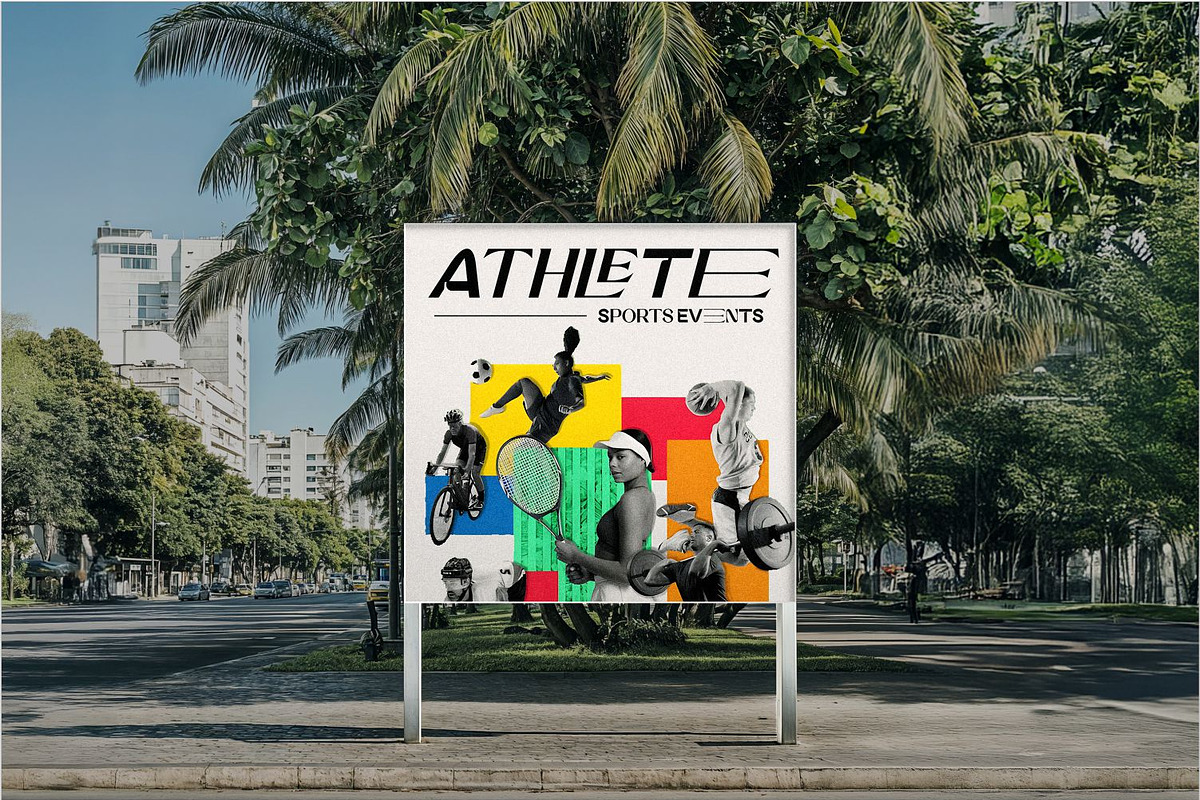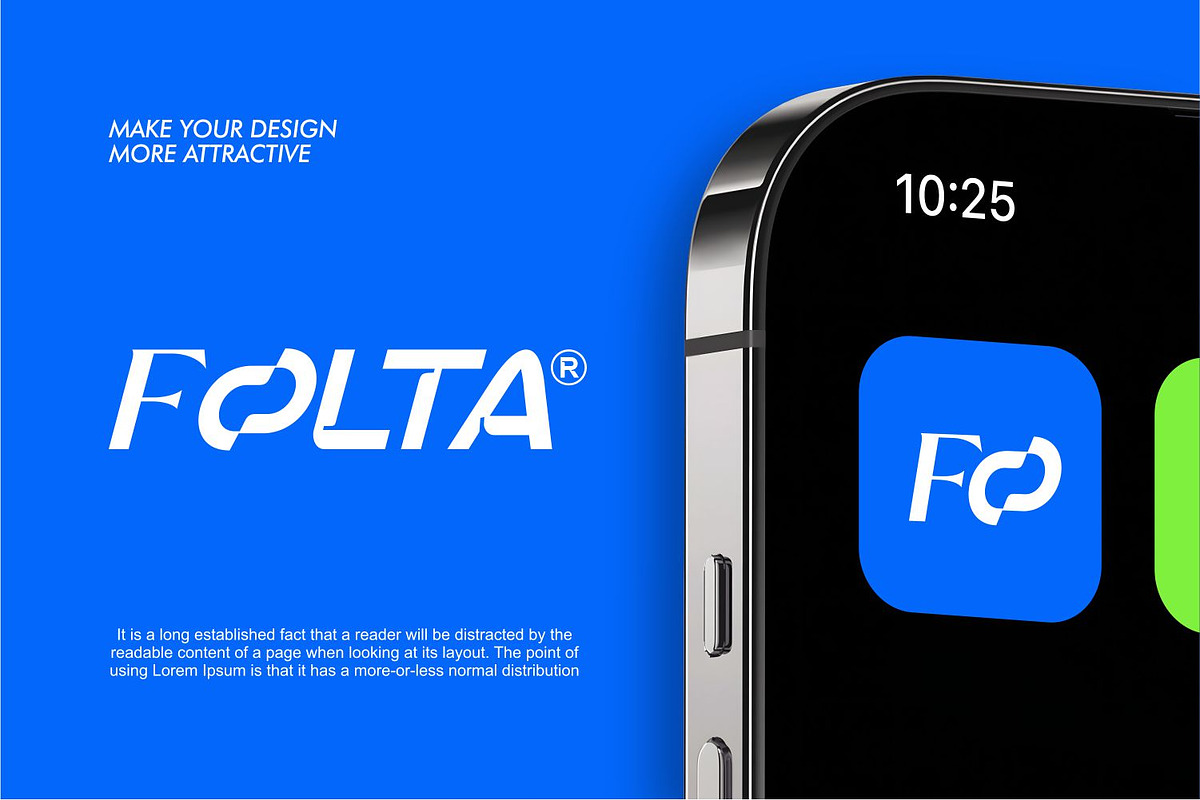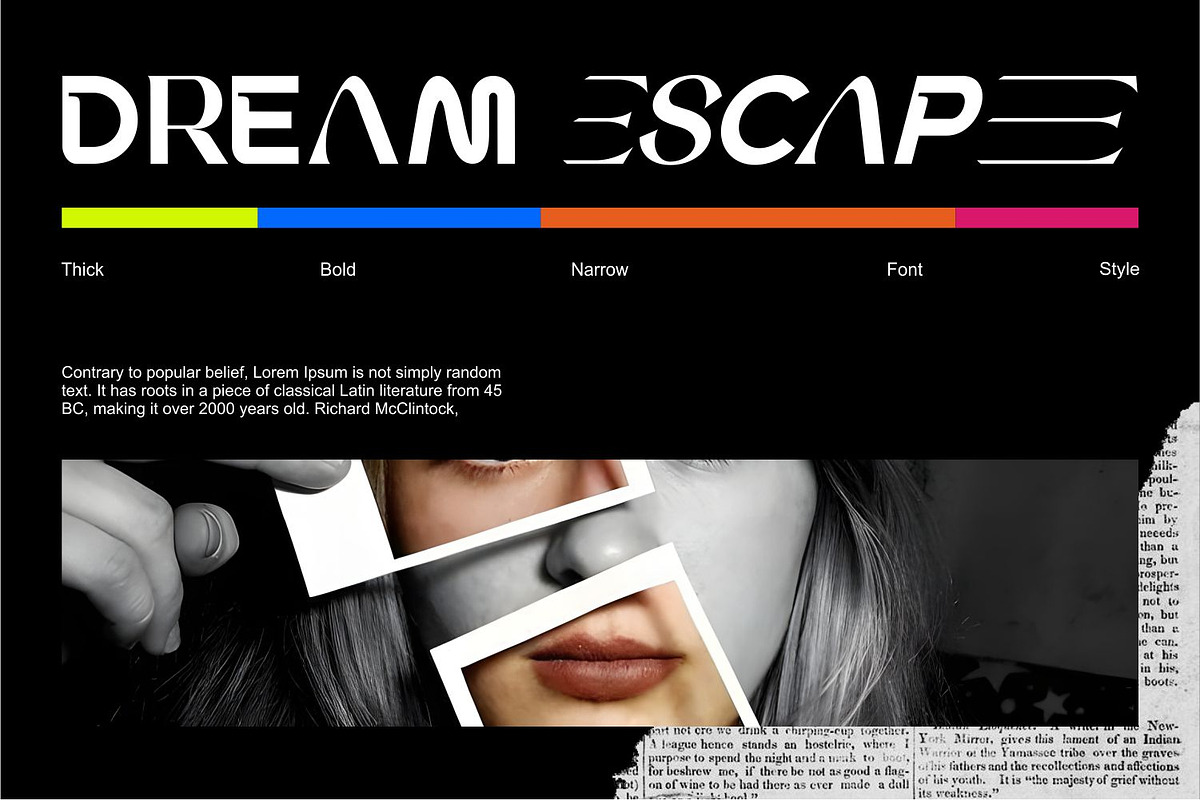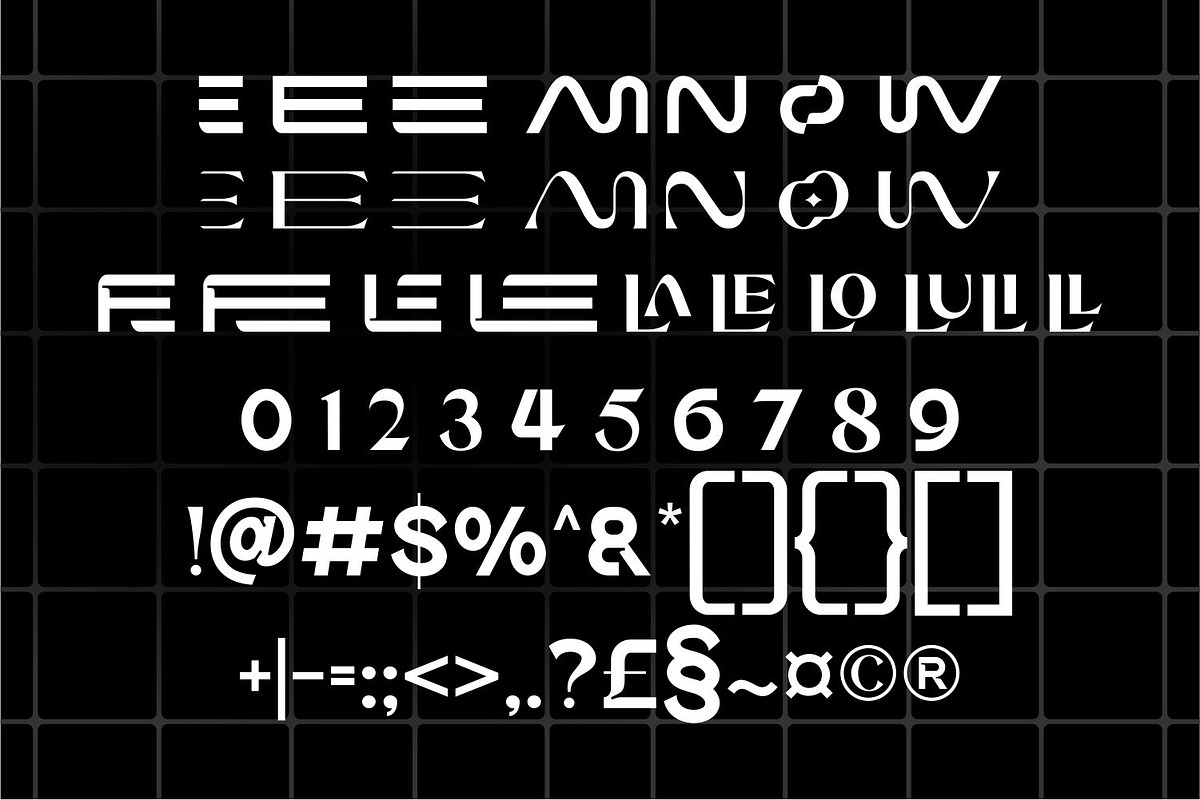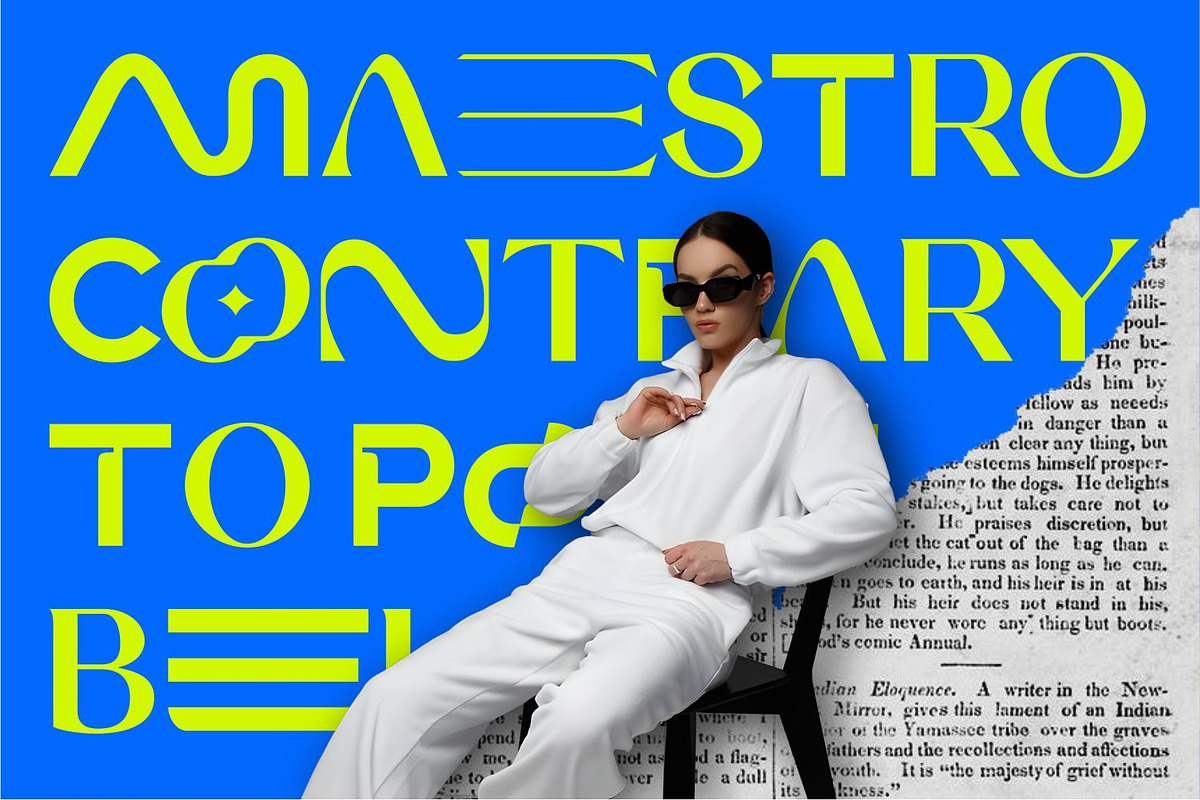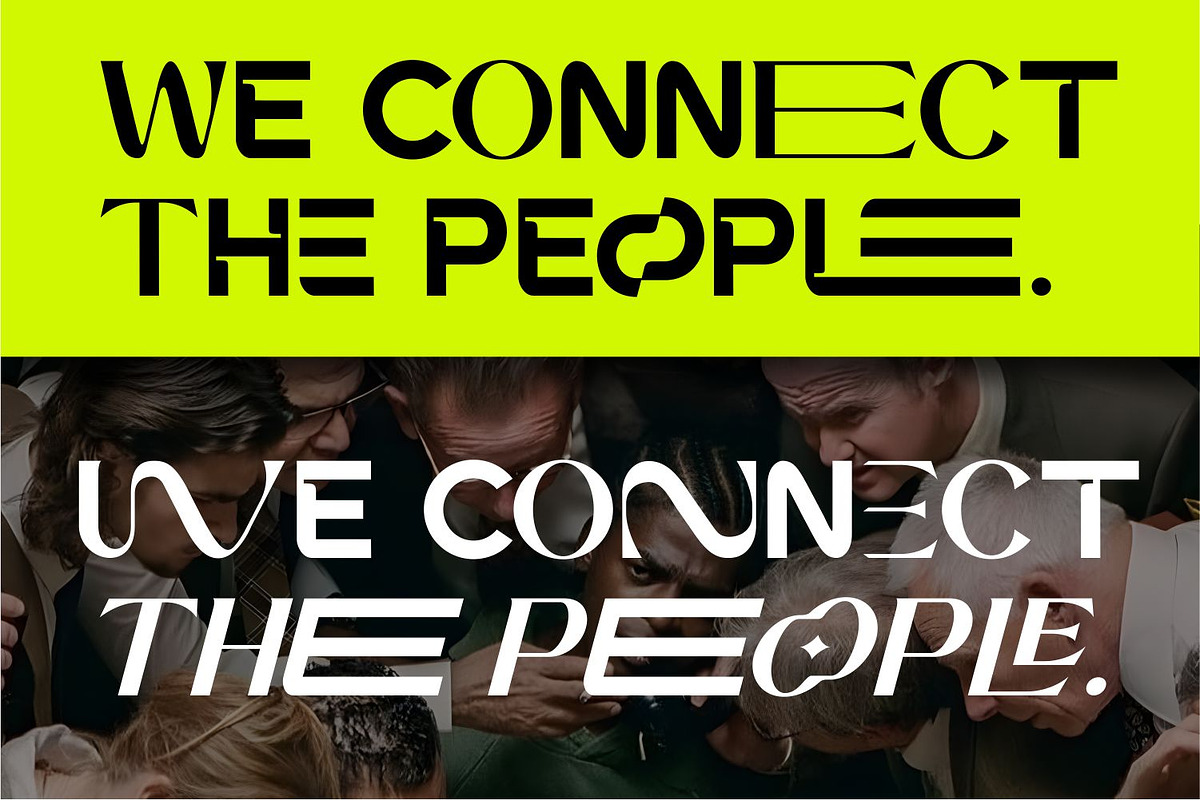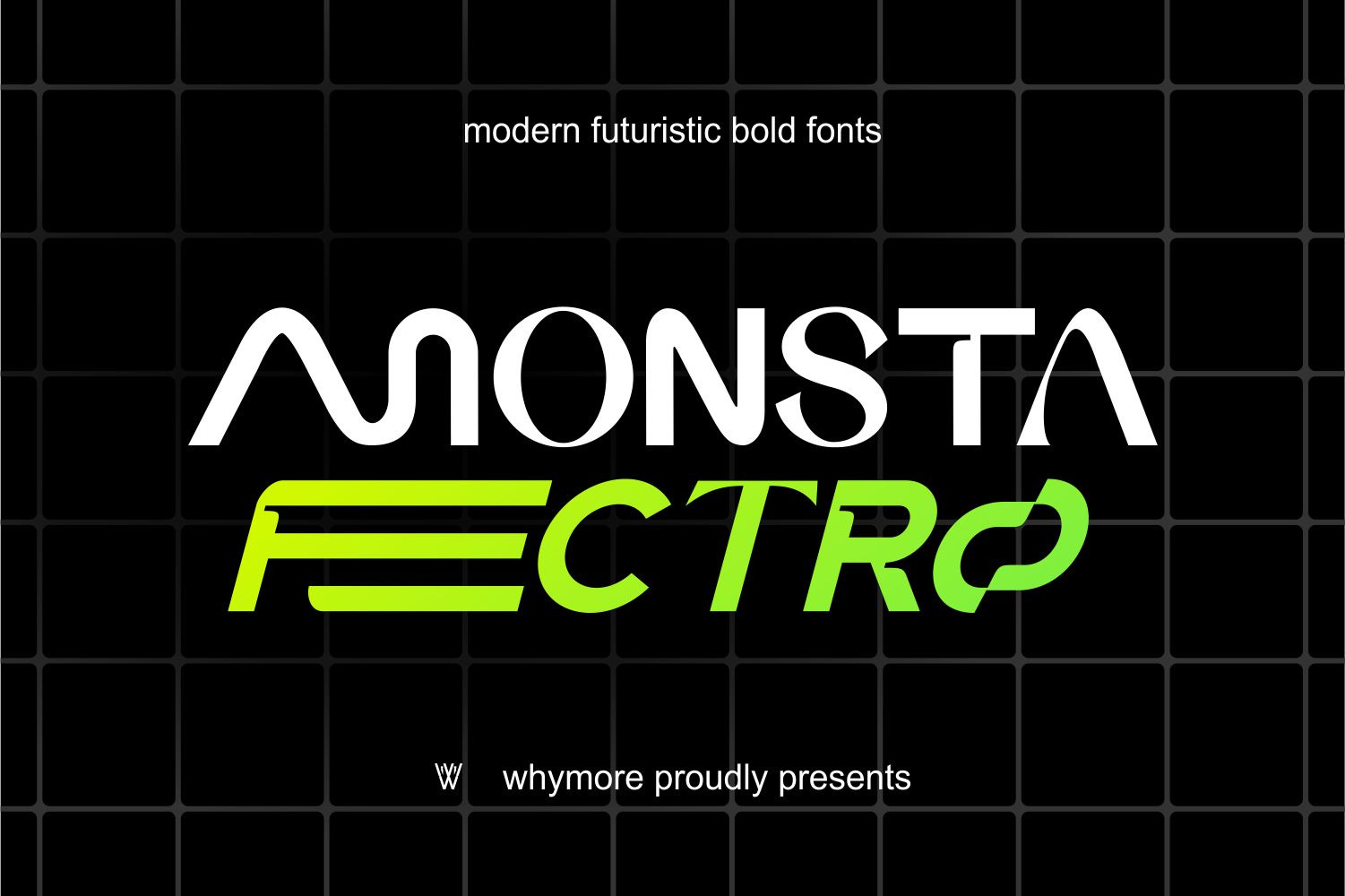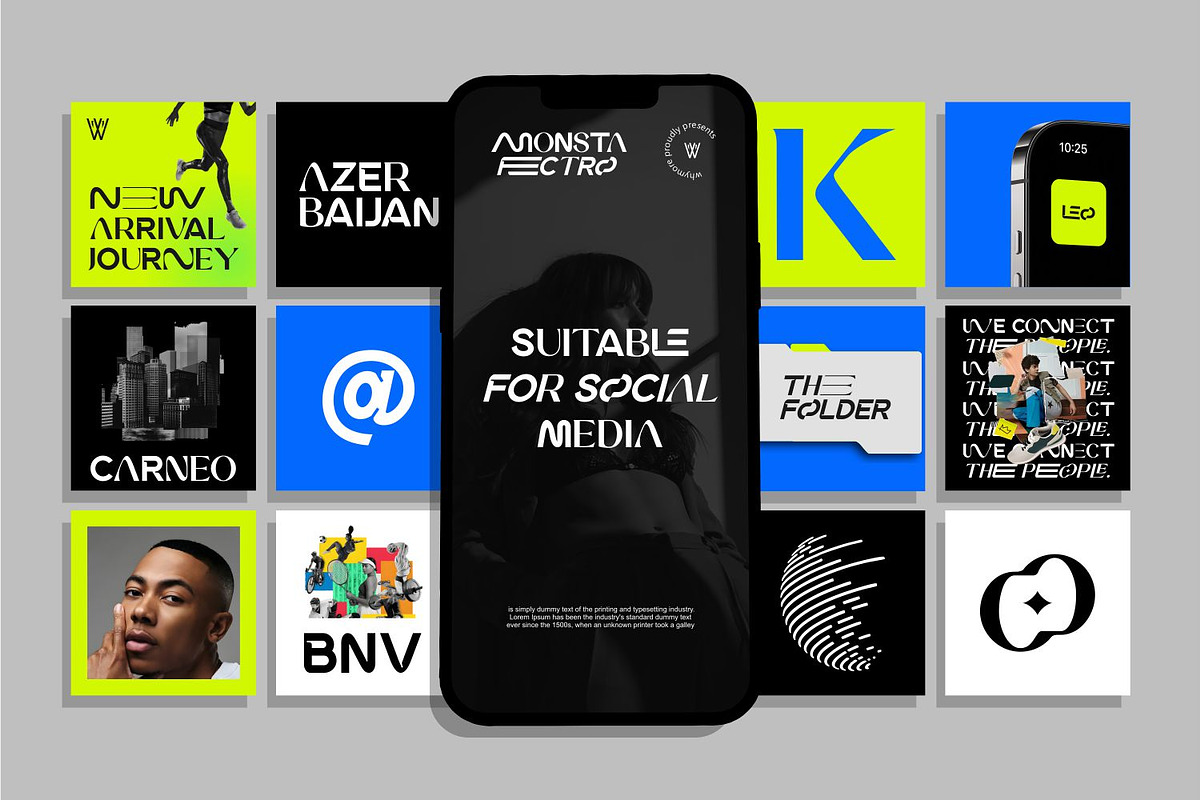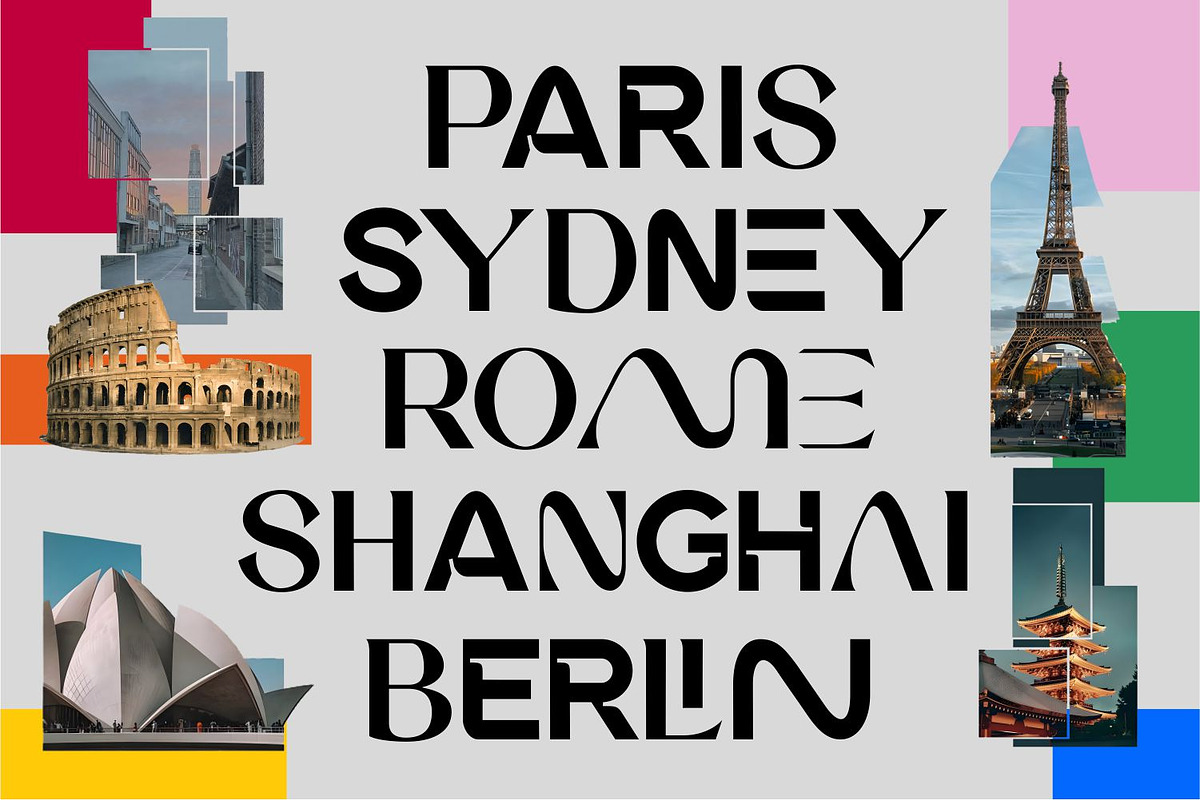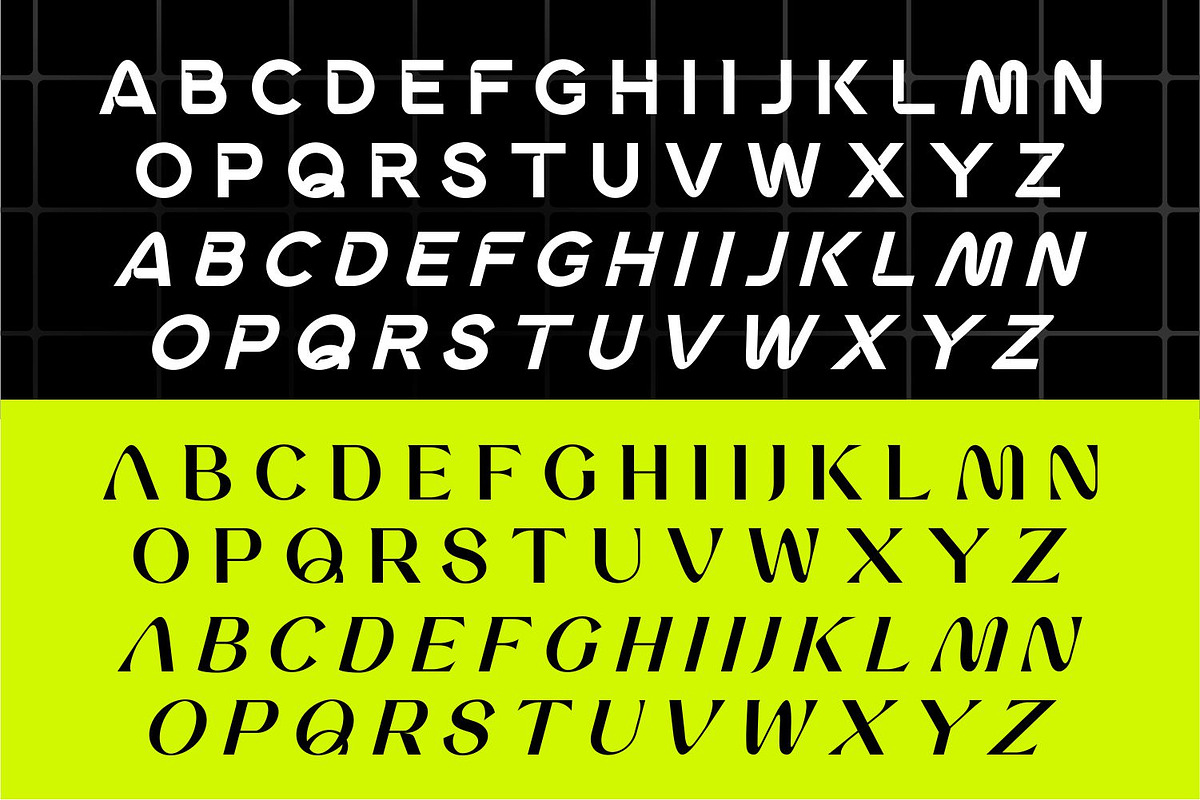
Monsta Fectro Modern Futuristic Font
Monsta Fectro is a bold geometric sans-serif font crafted for standout branding, urban design, and bold typographic identity. This condensed typeface combines sharp edges and unique letterforms with a modern Y2K twist, perfect for forward-thinking creatives.
Inspired by grunge streetwear, techno aesthetics, and graphic logo systems, Monsta Fectro elevates your designs with high-impact energy. Ideal for graffiti-style posters, Canva layouts, stationery mockups, bold headlines, and futuristic logos.
💡 Features: Bold geometric sans-serif Strong condensed structure All-caps styling OTF & TTF formats Perfect for tech, fashion, urban branding
🎯 Perfect For: Graffiti logos Urban branding kits Stationery mockups Y2K-inspired posters Bold fashion promotions Display titles and social graphics
Level up your visual presence with Monsta Fectro—a futuristic, fearless, and bold display font.